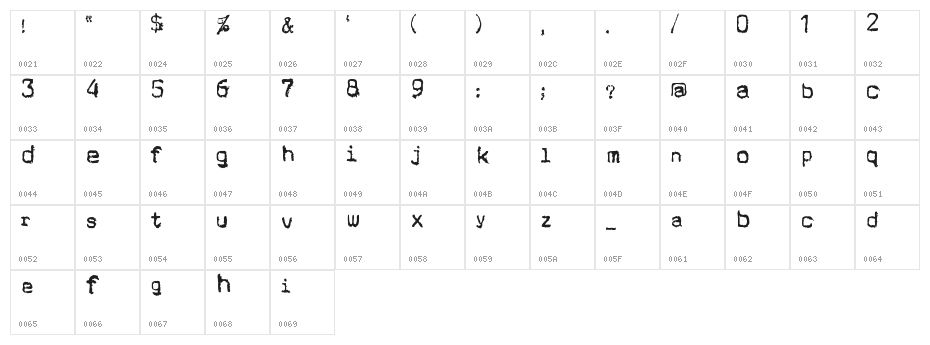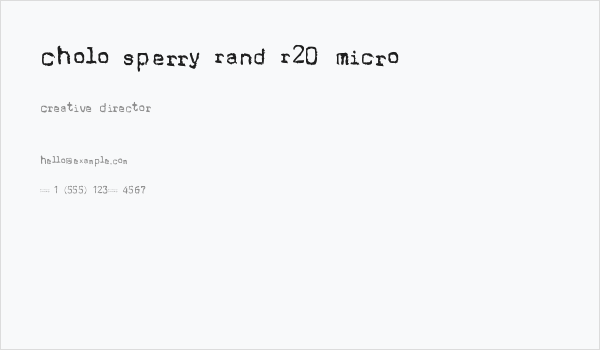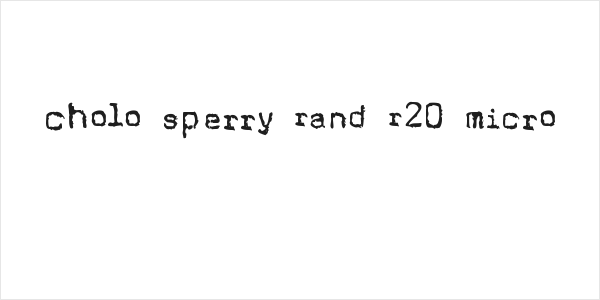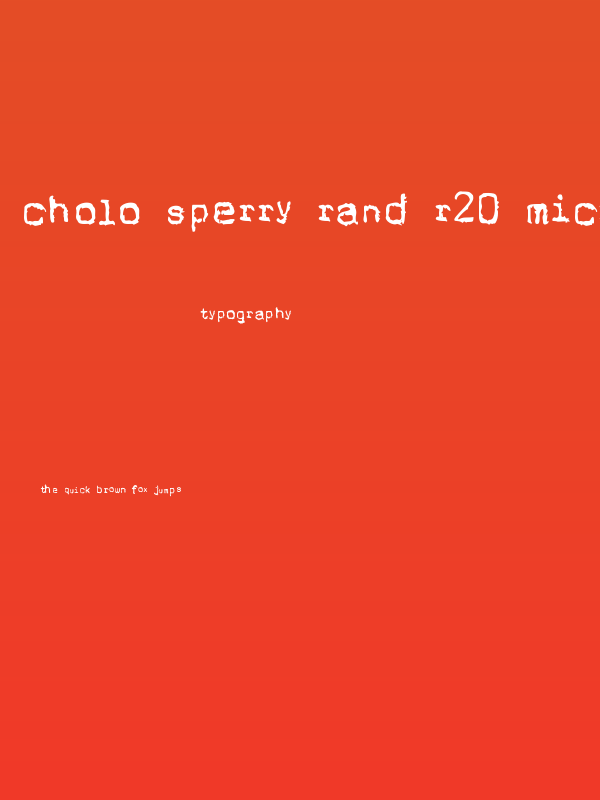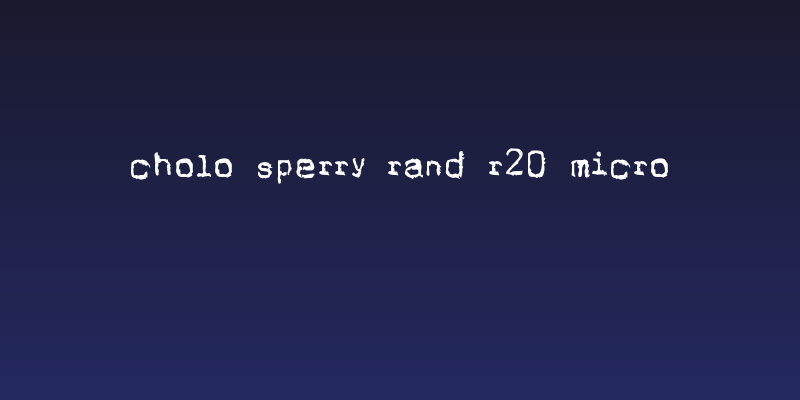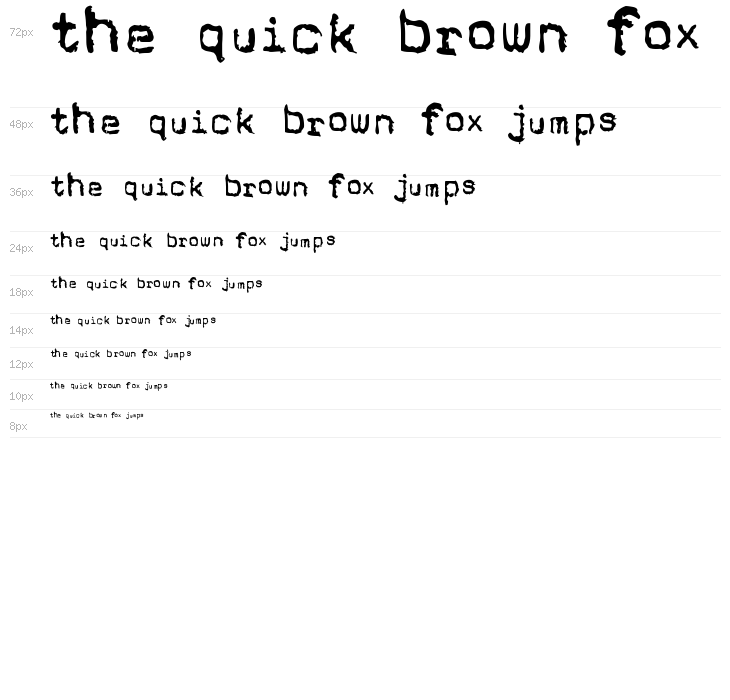
Cholo Sperry Rand R20 Micro Font
Cholo Sperry Rand R20 Micro Description
This font features a unique, distressed style with an organic, hand-drawn appearance. The characters have an irregular, rough texture that gives them a grungy, edgy feel. The strokes are uneven, with varying thickness that adds to the chaotic and dynamic look. The font maintains a consistent baseline, but the individual letters have a playful, unpredictable quality. This style is reminiscent of graffiti or street art, making it stand out with its bold and unconventional aesthetic. The numbers and special characters follow the same design principles, ensuring a cohesive look across all elements.